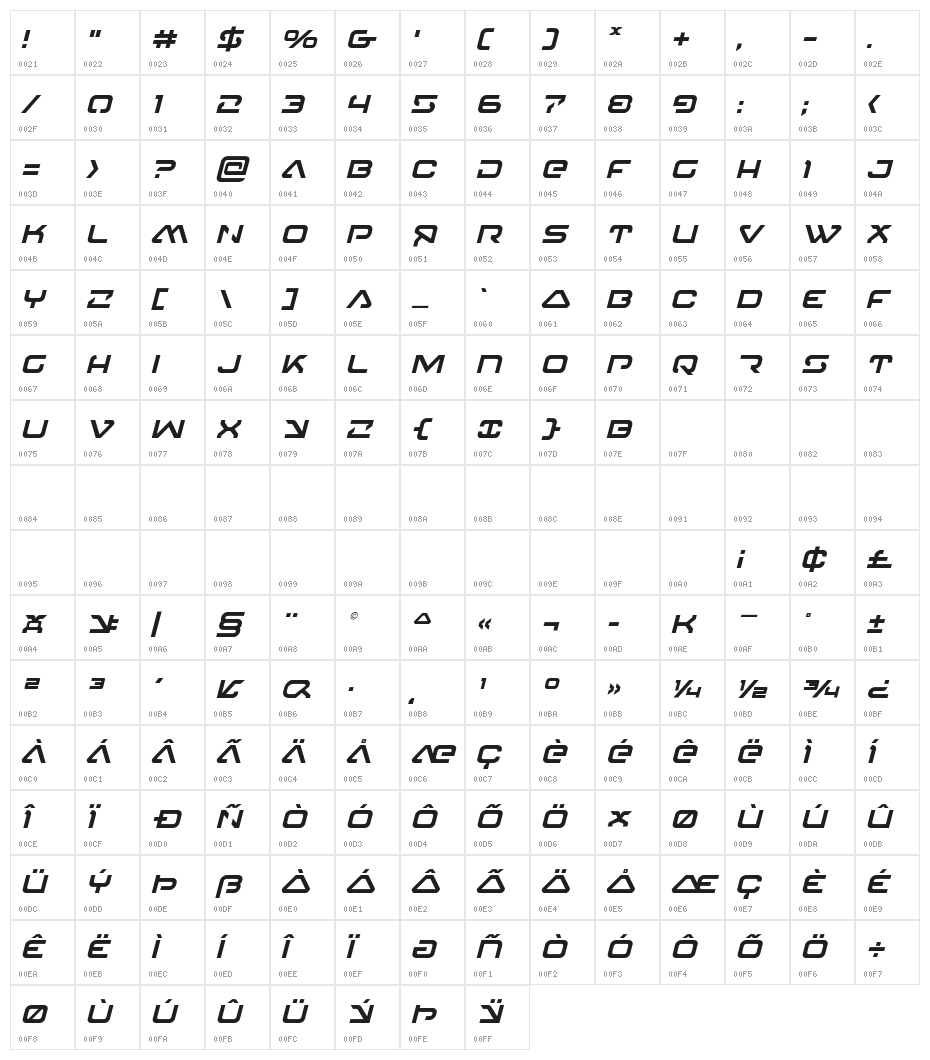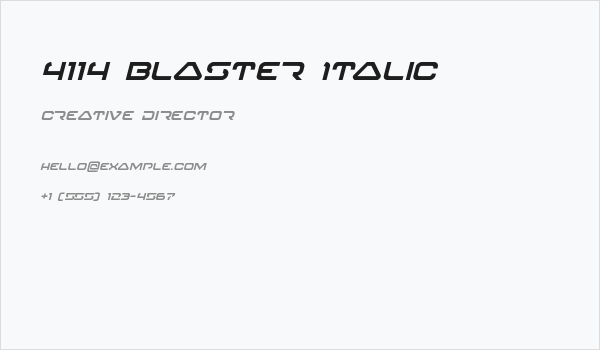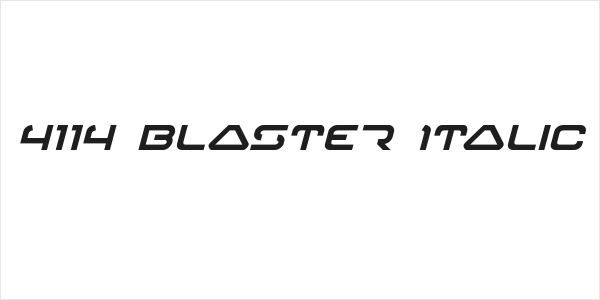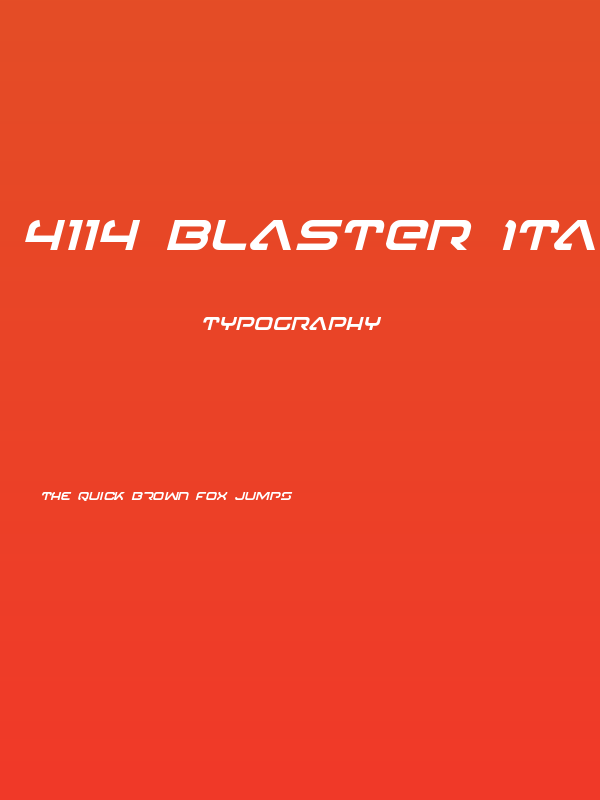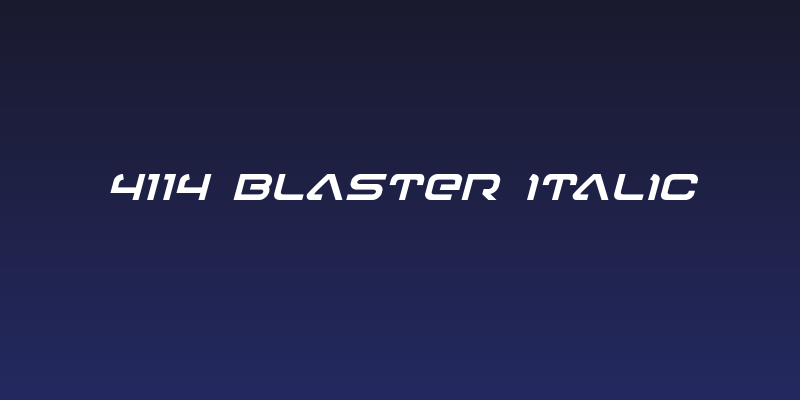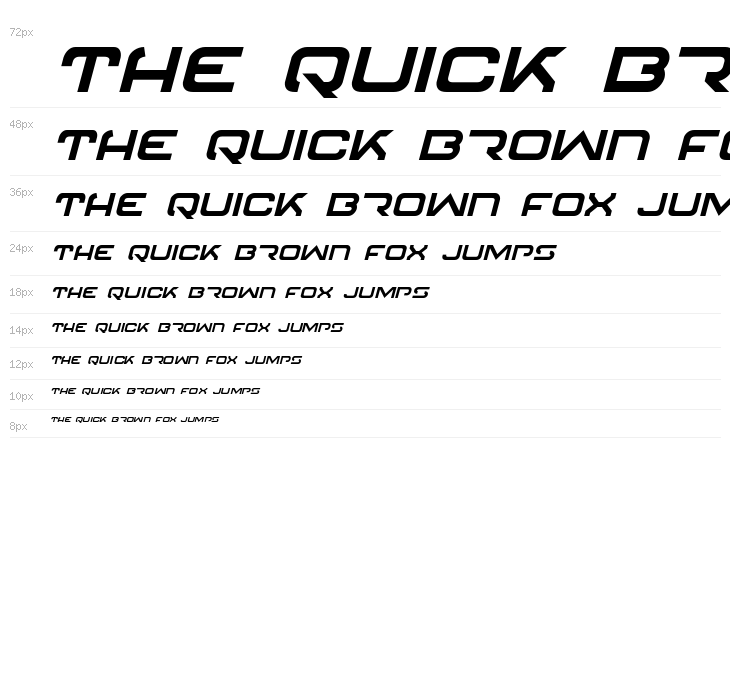
4114 Blaster Italic Font
4114 Blaster Italic Description
This font features a futuristic and dynamic style with a distinct italic slant, giving it a sense of motion and speed. The characters are bold and angular, with sharp edges and a geometric design that enhances its modern appeal. The uppercase and lowercase letters maintain a consistent style, with a slightly condensed width that adds to the compact and sleek appearance. The numerals and special characters follow the same design principles, ensuring uniformity across all glyphs. This font's unique style makes it suitable for projects that require a contemporary and energetic look.
| Proposed Projects | Ideal for sci-fi themed designs, video game titles, tech branding, and dynamic posters. |